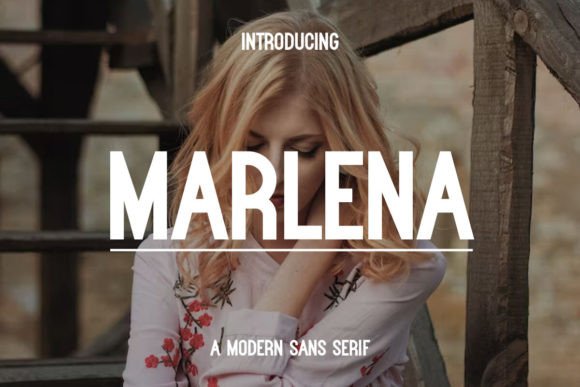
**Step into the world of Marlena Font, the sans serif masterpiece that will captivate your audience with its timeless elegance and versatility.**
Embrace the power of typography and embark on a creative journey where your designs come to life. Marlena Font is meticulously crafted to elevate your headings and fashion-inspired creations, leaving an unforgettable impression on every viewer.
Indulge in the effortless beauty of Marlena's clean lines and sophisticated curves. Its versatile nature adapts seamlessly to any project, from chic magazine covers to captivating social media posts. With Marlena Font, you possess the key to unlock endless possibilities, igniting your imagination and inspiring your creativity.
Dive into the world of Marlena Font today and experience the transformative power of beautiful typography. Let your designs flourish, your brand soar, and your vision take center stage. Marlena Font is not just a font; it's an investment in your creative future.